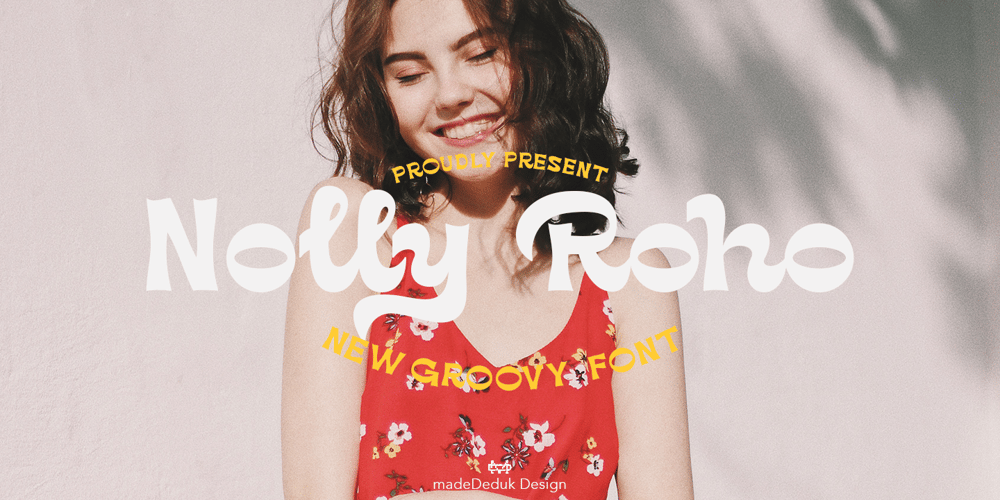
Nolly Roho
Nolly Roho font
Nolly Roho Font Family was designed by Pande Made and published by madeDeduk. Nolly Roho contains 1 styles and family package options. Nolly Roho is a groovy font come with 80’s script style. Groovy and refined you can explore and combine creating rhythm for comfortable reading.Feature Uppercase & Lowercase Number & Symbol International Glyphs Multilingual support Alternative Ligature Feel free to drop us a message any time and follow my shop for upcoming updatesHope you enjoy it.